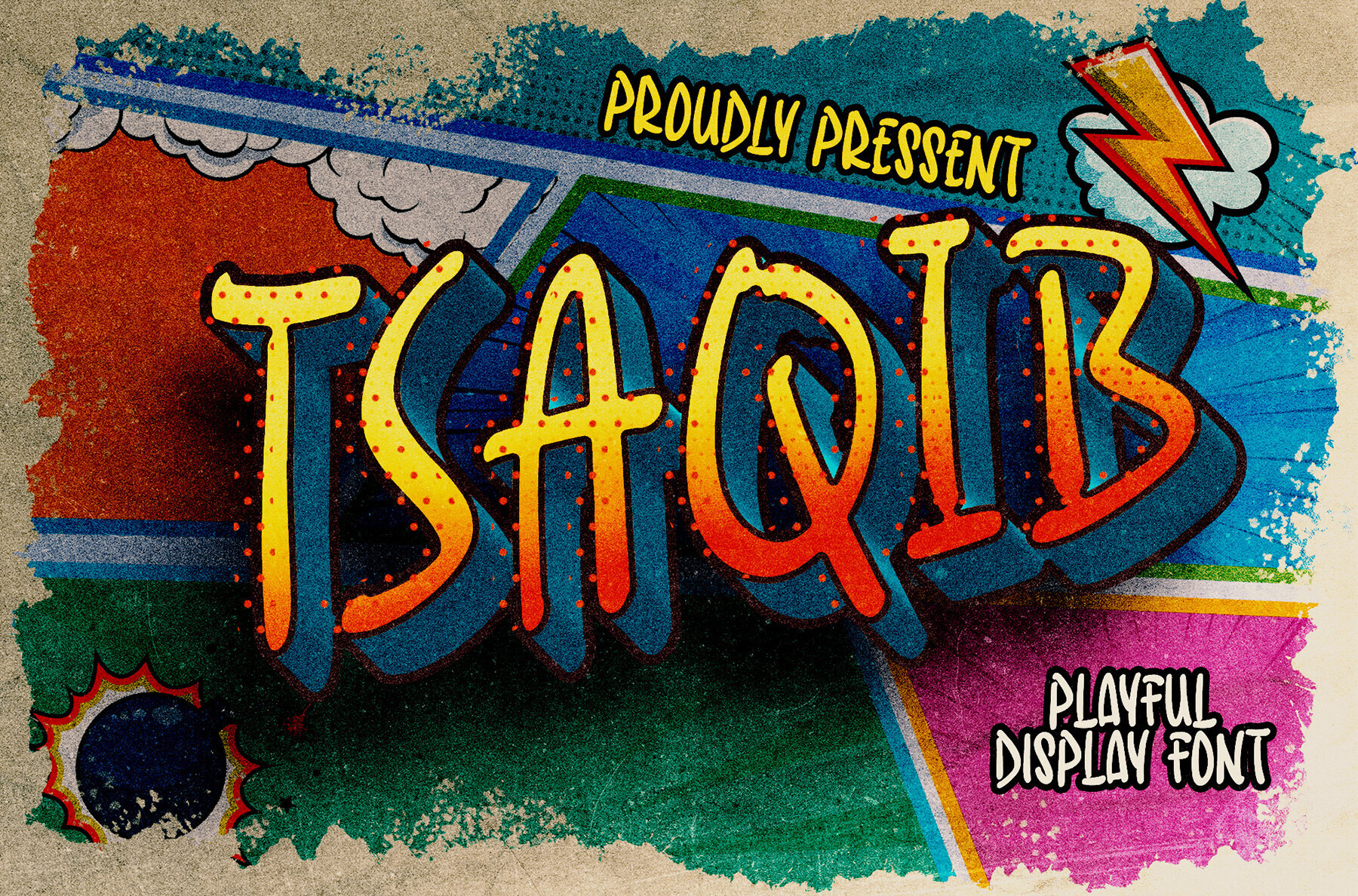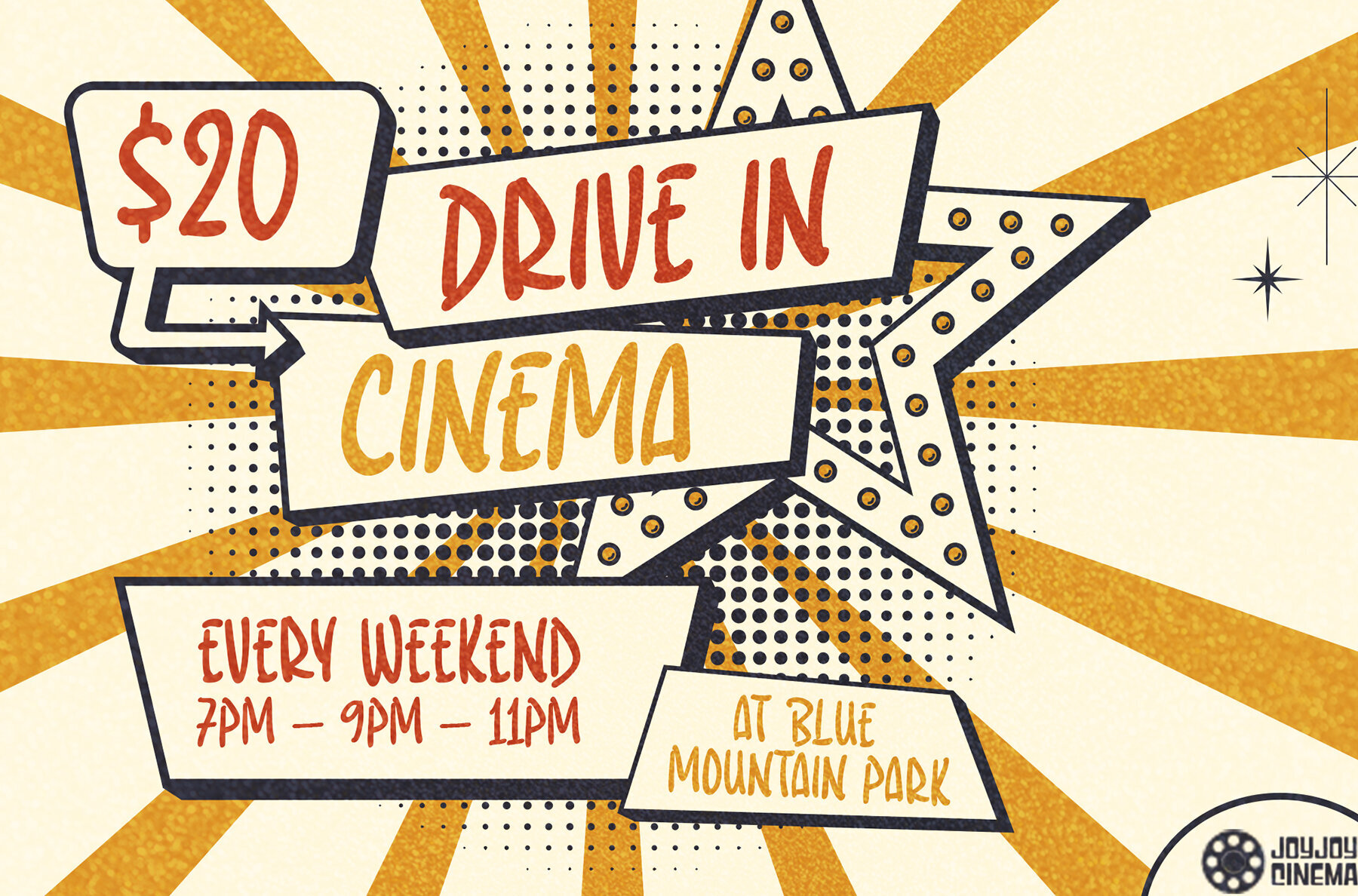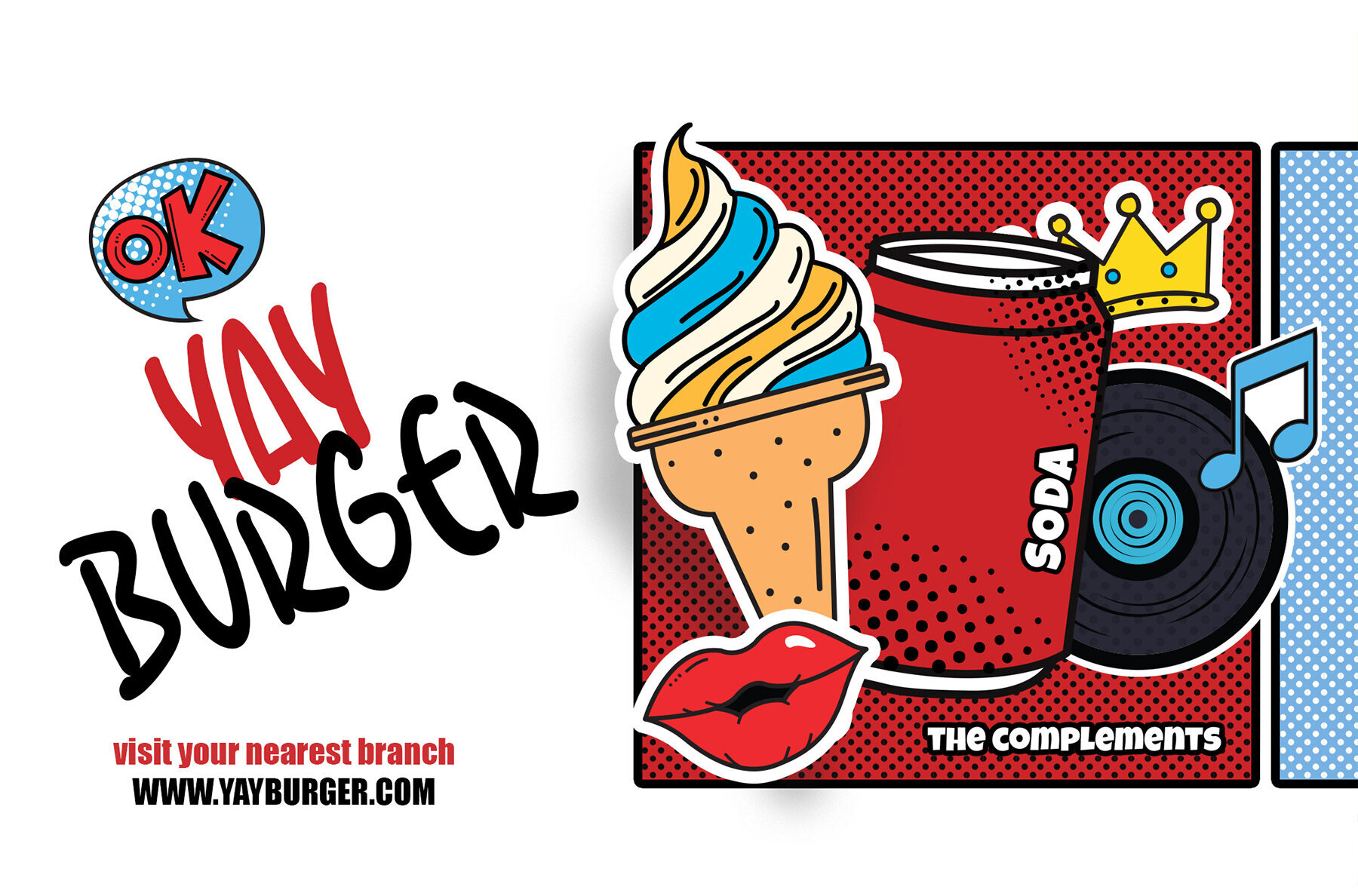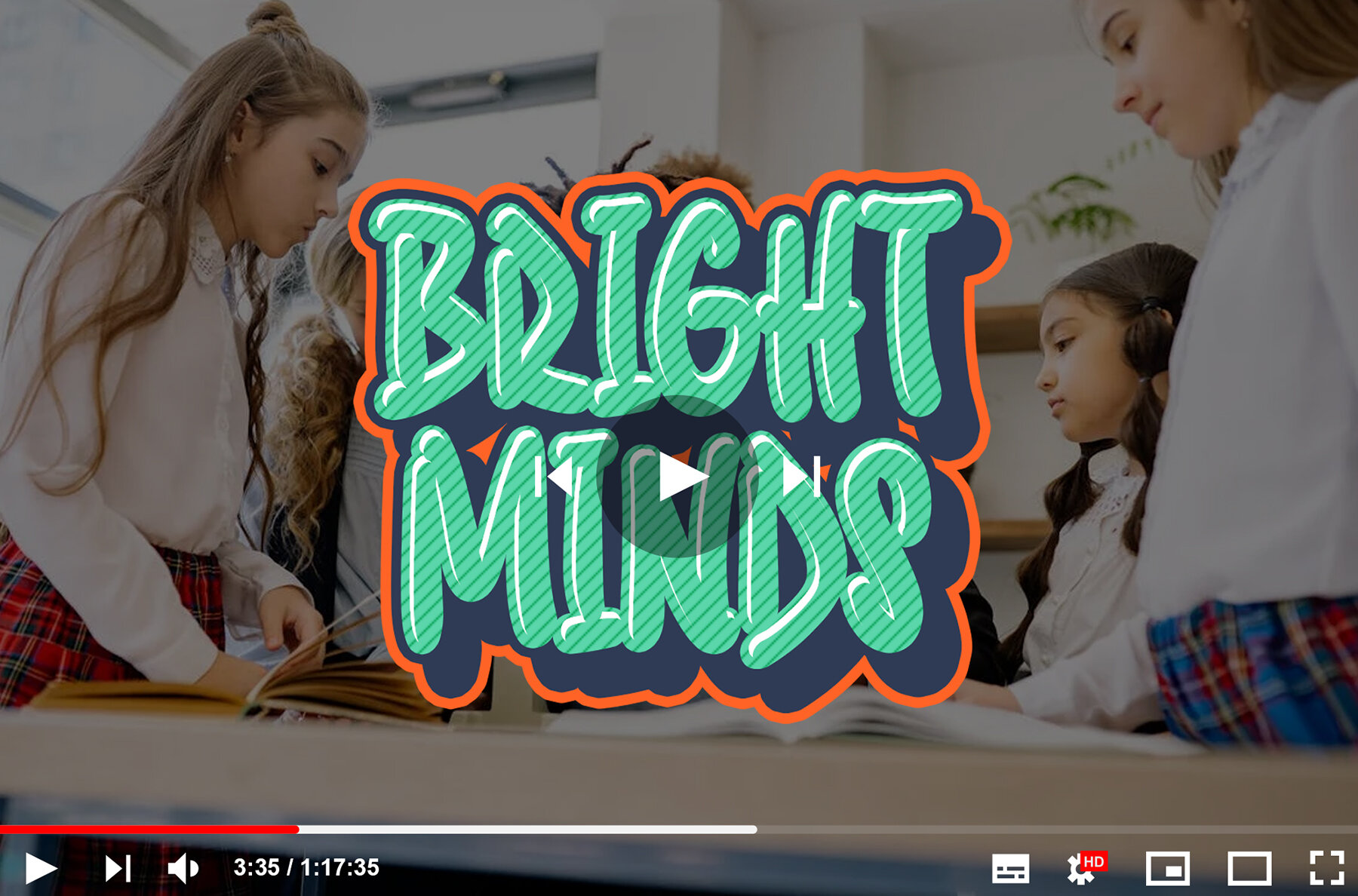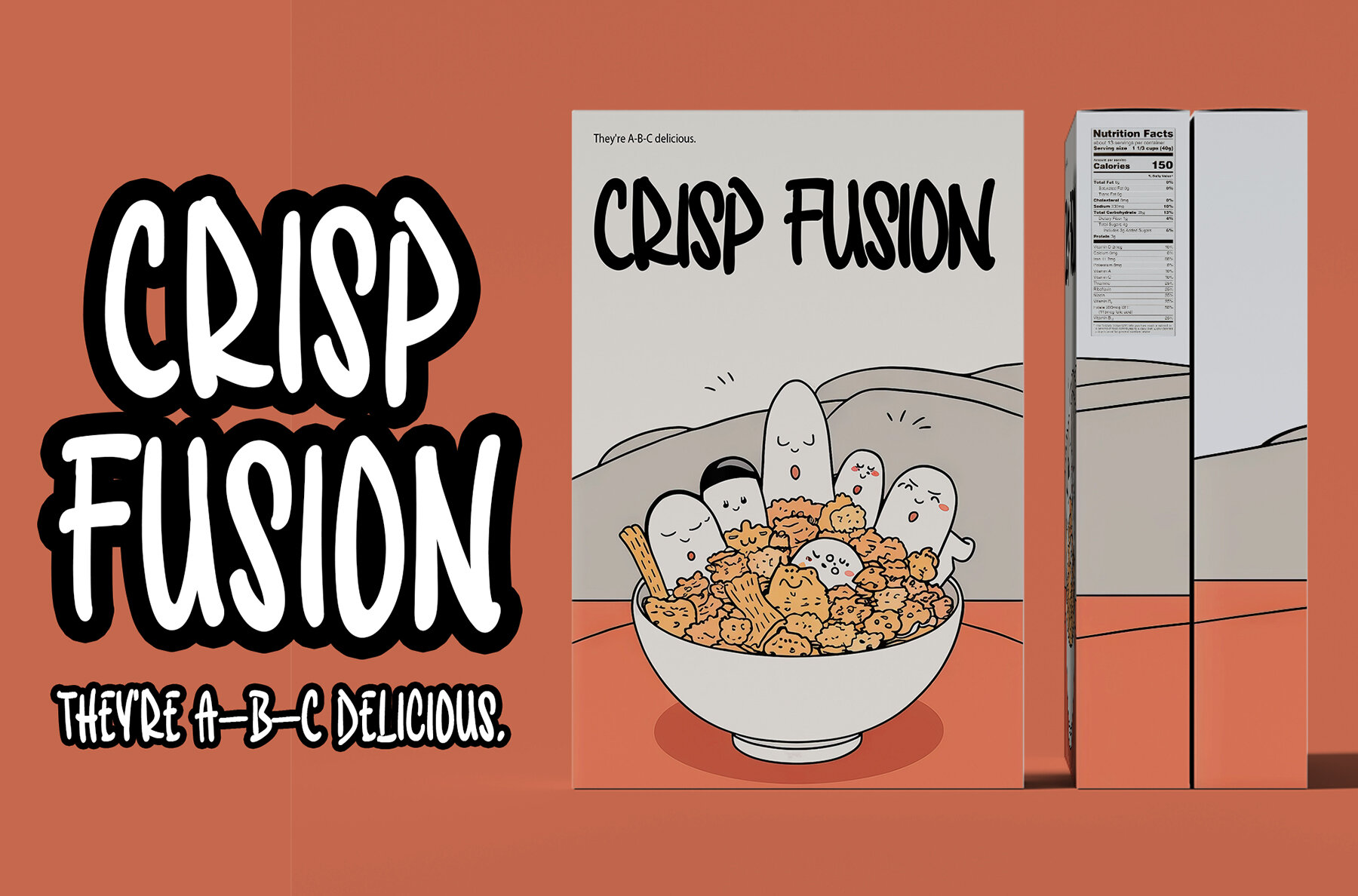
Tsaqib Font
Tsaqib Regular
Tsaqib Typeface
Tsaqib is a modern and playful typeface, crafted for those who seek to infuse sophistication into their designs. Perfectly suited for logos, branding, social media graphics, and elegant invitations, Tsaqib offers a unique and stylish flair to any project. Its clean and timeless design ensures it remains a versatile choice for both digital and print applications.
- Modern and timeless design
- Multilingual support
- Suitable for print and digital use
Inject a fresh and refined aesthetic into your work with Tsaqib, a font that embodies elegance and creativity.